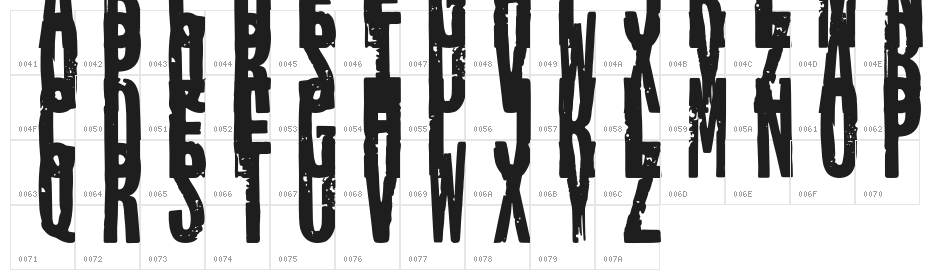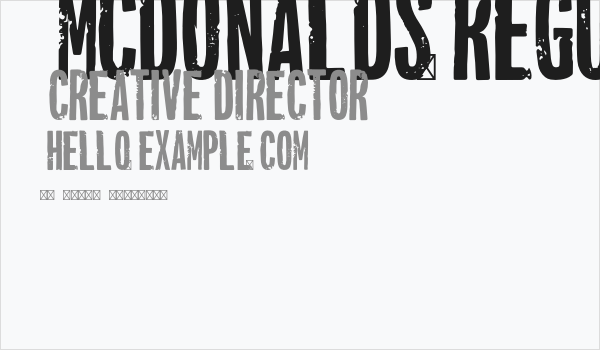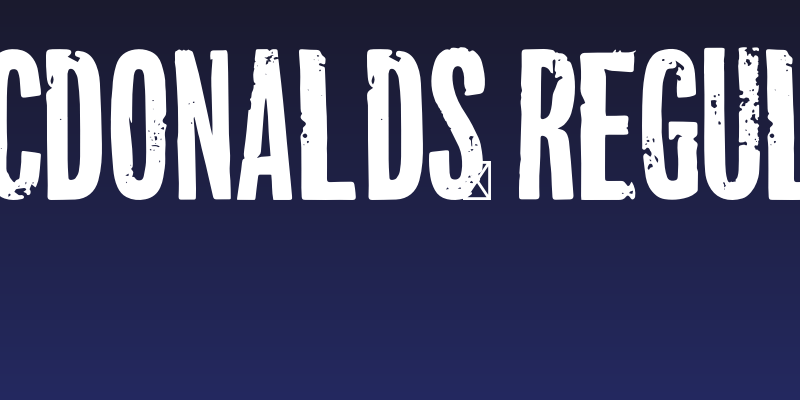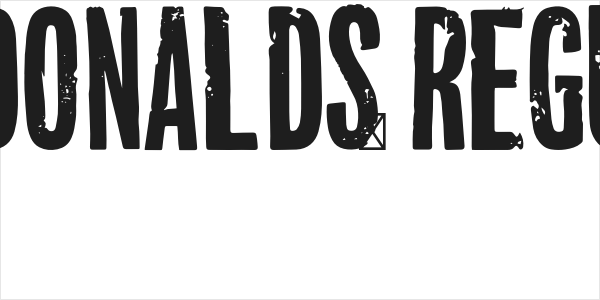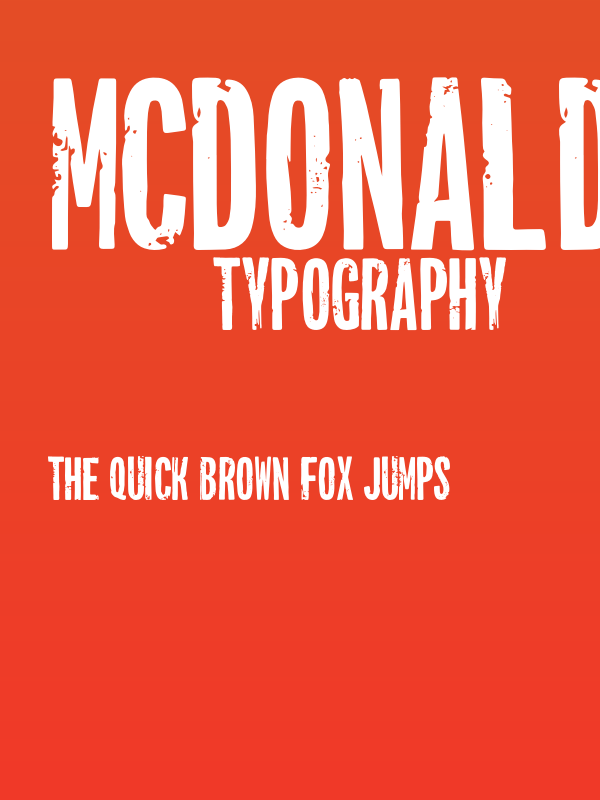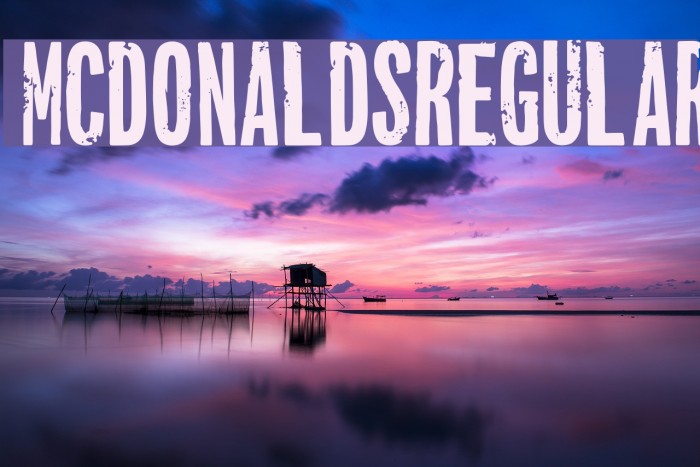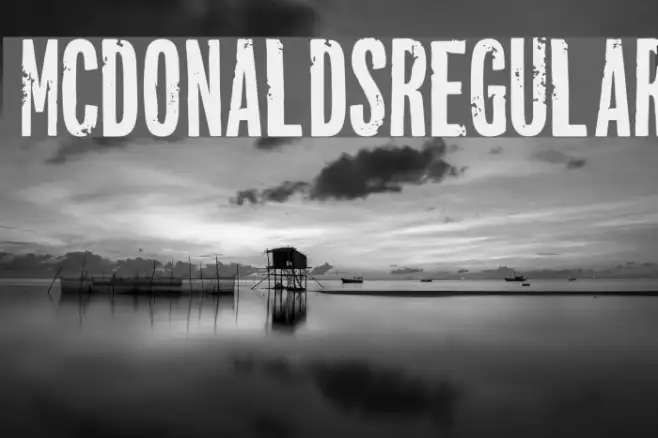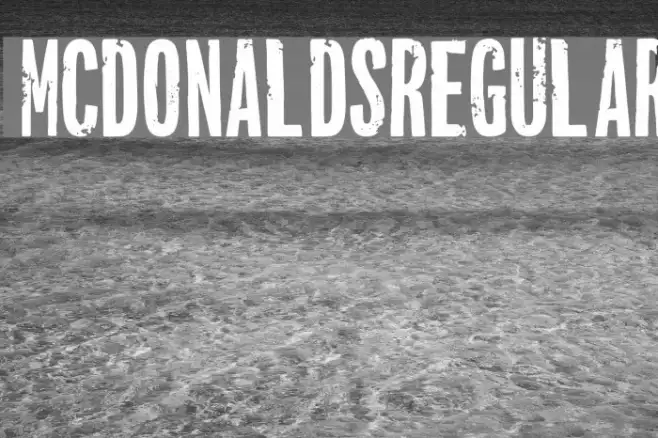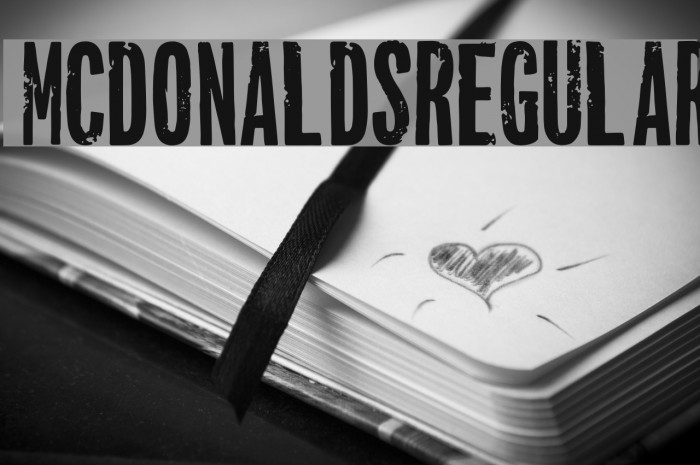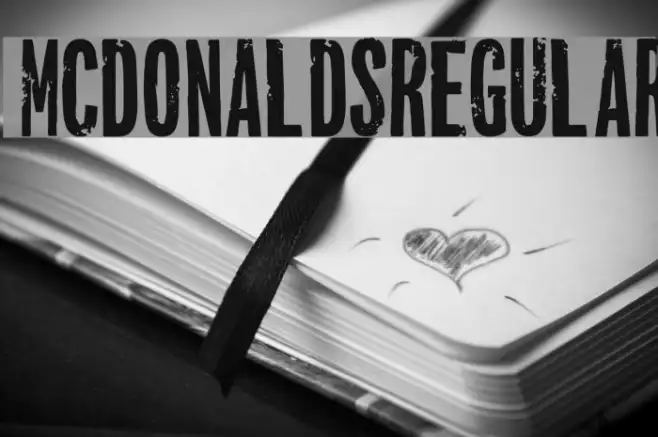
McDonalds-Regular Font
McDonalds-Regular Description
This font features a distressed, grunge style with a bold and impactful presence. The uppercase letters are tall and narrow, with irregular edges that give a worn, textured appearance. The lowercase letters maintain the same rugged aesthetic, creating a cohesive look throughout the typeface. Numbers and special characters follow the same design, ensuring consistency. The font's unique style makes it stand out, perfect for projects that require a bold statement or an edgy, urban feel.
| Width | Condensed |
| Overall Style | Grunge, Urban, Edgy |
| Proposed Projects | Ideal for music album covers, event posters, streetwear branding, or any project needing an edgy, urban vibe. |